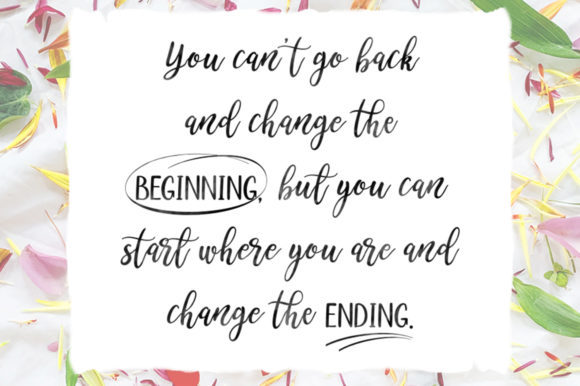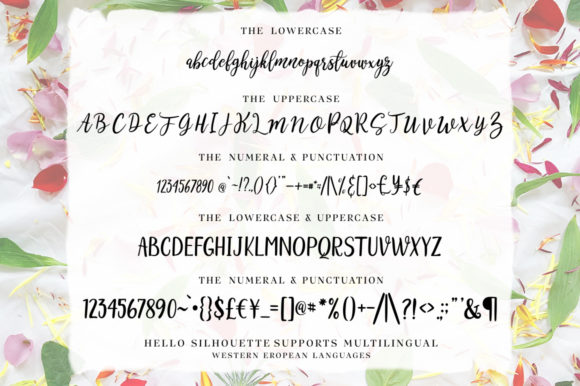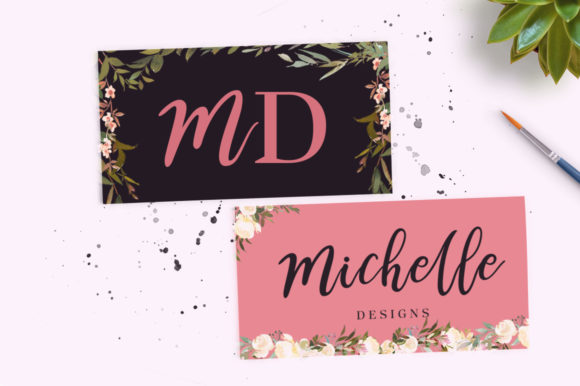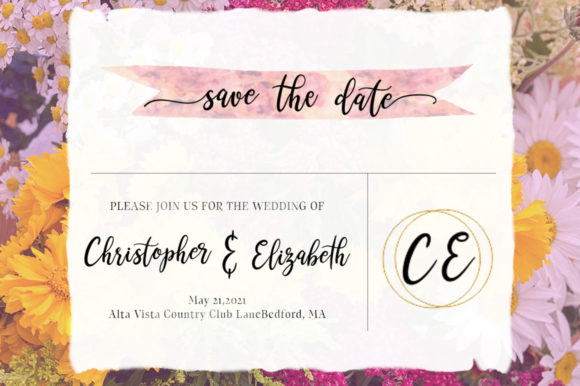
Discover the Perfect Script for Your Next Design Project
Have you ever found yourself staring at a blank page, desperately searching for the perfect font to bring your creative vision to life? We’ve all been there. As designers, we know that the right font can make all the difference between a mediocre design and a masterpiece. That’s why we’re excited to introduce you to the Hello Scrilla Script Font, a stunning duo font that’s about to become your new go-to.
This elegant and modern font is a game-changer for designers, offering a delicate, neat, and versatile design that fits perfectly into a wide range of projects. Whether you’re working on a branding project, a wedding invitation, or a social media campaign, the Hello Scrilla Script Font is the perfect addition to your fonts’ repertoire. With its incredible flexibility and timeless style, it’s no wonder this font has become a top choice among designers.
Hello Scrilla Script Font Key Features
- Unique Characteristics: The font features a unique, handwritten style with a mix of elegant and playful elements, making it perfect for adding a touch of personality to designs.
Hello Scrilla Script Font Review
Hello Scrilla Script Font is a beautiful, elegant script font that shines with sophistication ✨. Its fluid connections and subtle flair make it perfect for adding a touch of luxury to your designs. The font is highly legible, even at smaller sizes, and the variations in weight and style offer a lot of creative freedom.
The best part about Hello Scrilla Script Font is its versatility ✨. It’s perfect for creating invitations, branding materials, and even digital products. The font’s high-end feel makes it ideal for high-end fashion, jewelry, and beauty brands.
While Hello Scrilla Script Font is an excellent choice for many designers, it’s not without its limitations ⚠️. One of the main issues is the lack of international character support. This can be a problem for designers working on projects that require languages other than English.
- ⚠️ Limited international character support
- ⚠️ Not suitable for projects that require bold, condensed, or italic variations
Overall, I’m really impressed with Hello Scrilla Script Font. It’s a beautiful, sophisticated font that’s perfect for adding a touch of luxury to your designs. While it has some limitations, it’s still a great choice for many designers. If you’re looking for a high-end script font, I would definitely recommend giving Hello Scrilla Script Font a try.
Hello Scrilla Script Font is perfect for:
1. Creating elegant and sophisticated titles and headings.
2. Adding a touch of whimsy and playfulness to your designs.
3. Creating invitations, posters, and other promotional materials.
1. Use Hello Scrilla Script Font sparingly to avoid overwhelming your design.
2. Pair it with a clean and simple font to balance out the elegance.
3. Experiment with different font sizes and colors to find the perfect combination.
Alternatives to Hello Scrilla Script Font
Hello Scrilla Script Font is a popular script font used in various design projects. However, it may not be suitable for every design. Here are some alternatives that designers can consider.
What is the recommended font size for using Hello Scrilla Script Font?
The recommended font size for using Hello Scrilla Script Font is between 18-36 points. This allows for optimal readability and legibility, especially when used in headings, titles, or other display text. However, feel free to experiment with different font sizes to achieve the desired visual effect for your project.